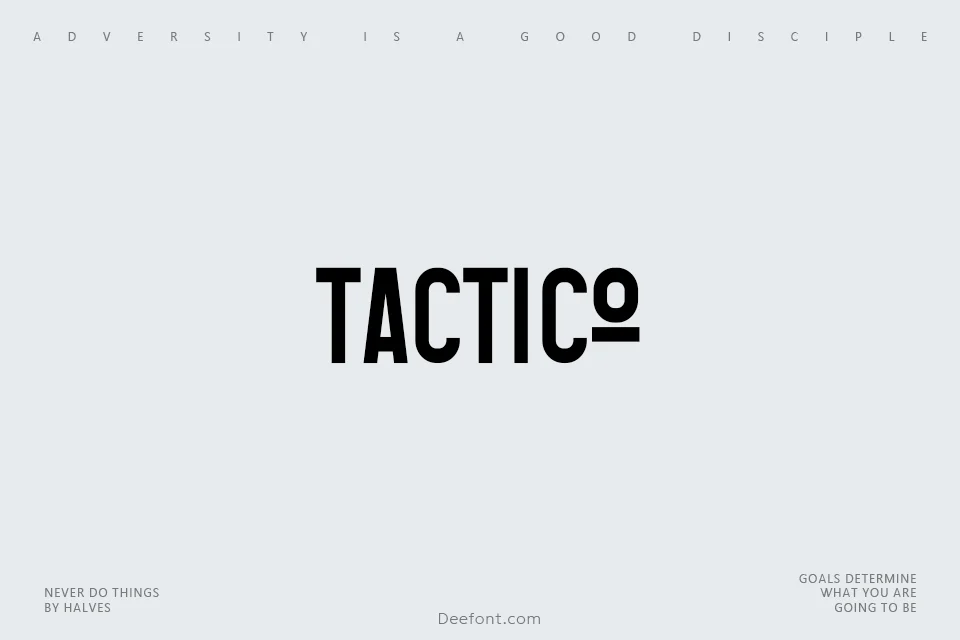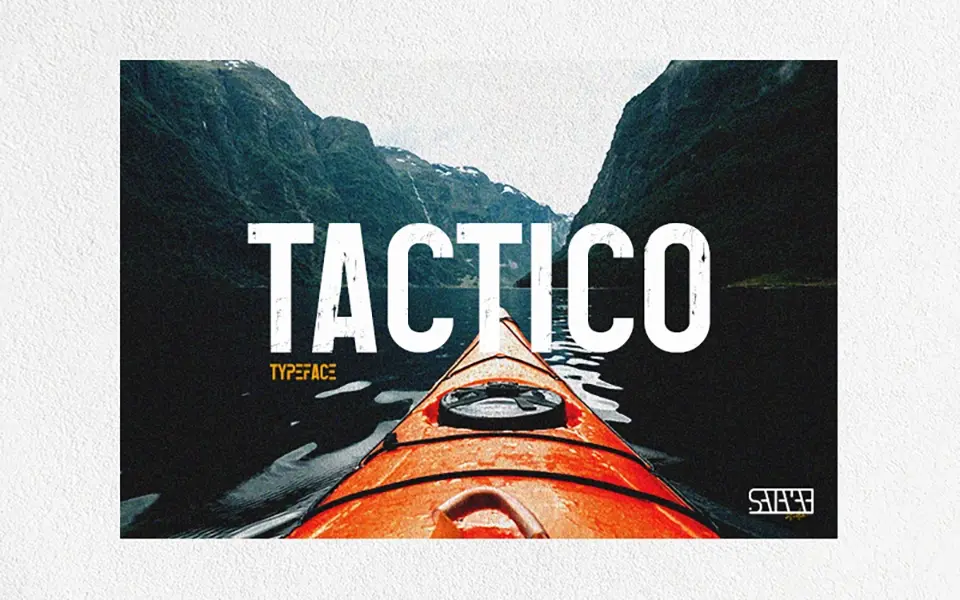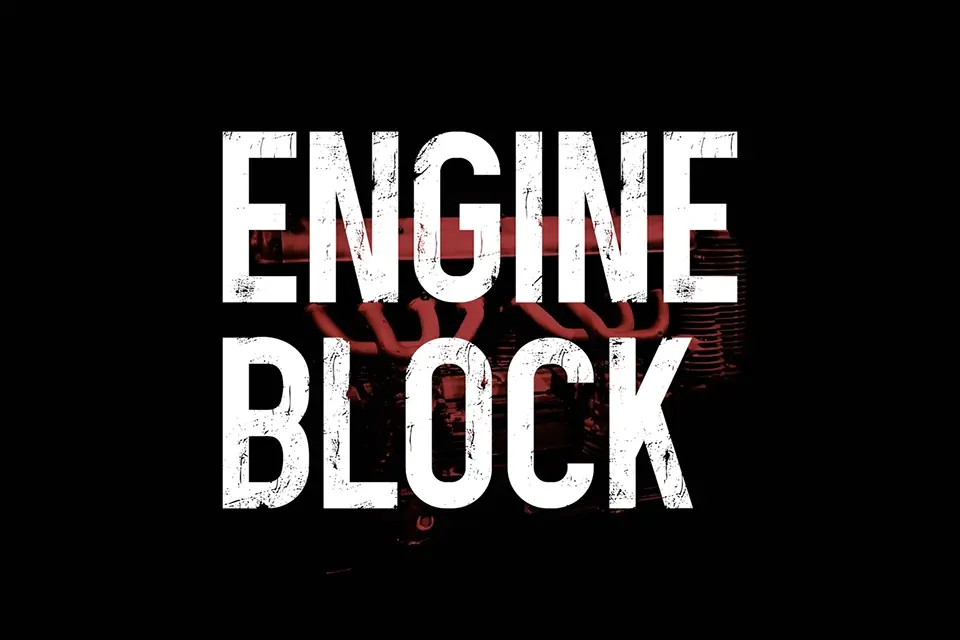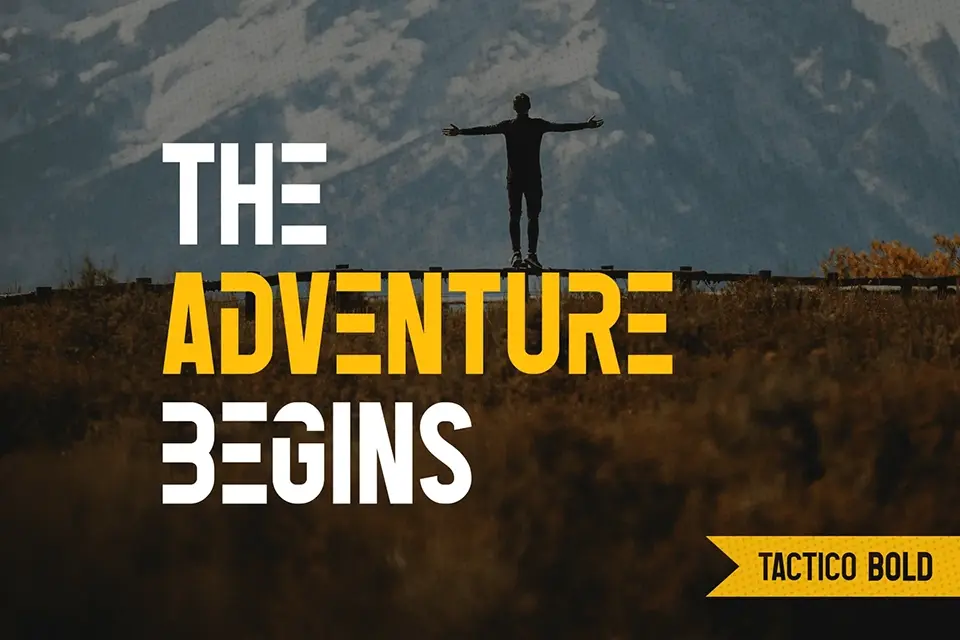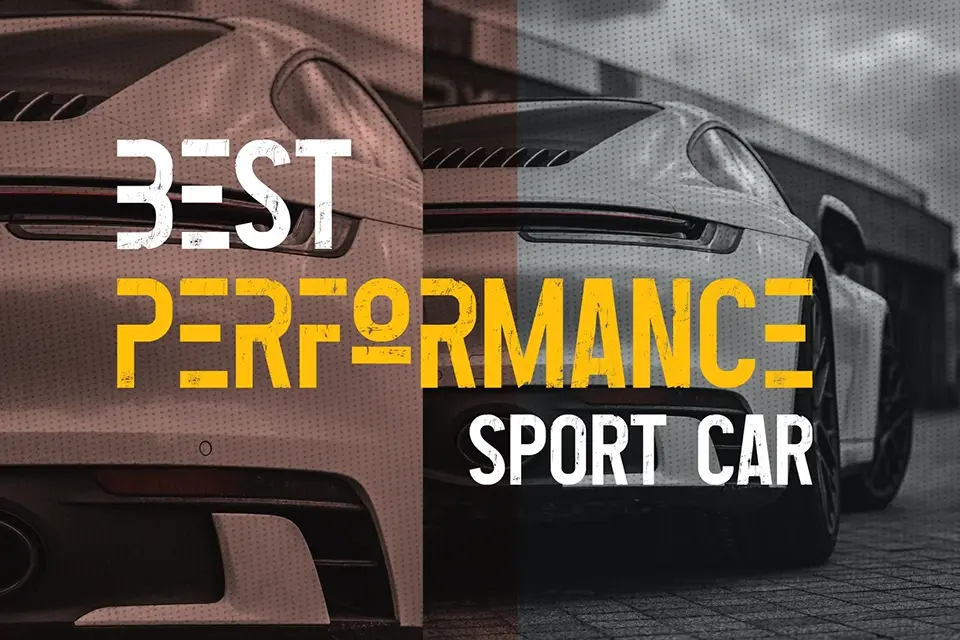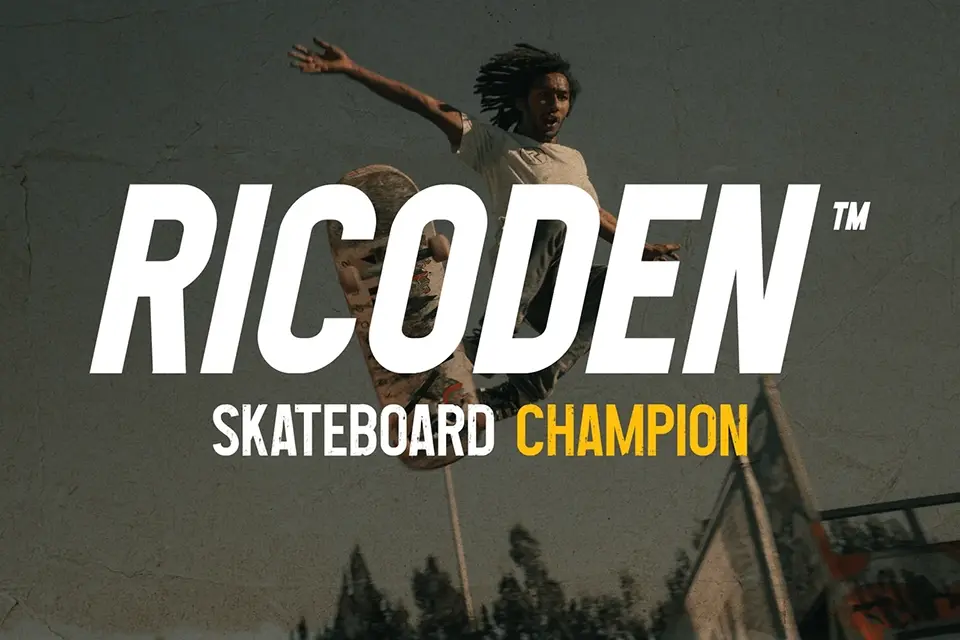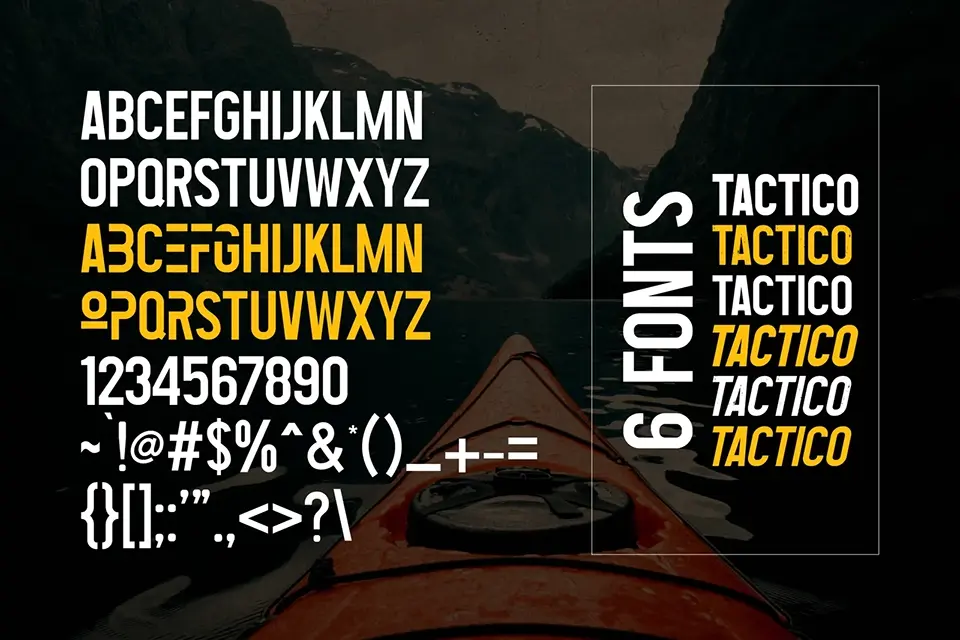
Tactico Font
Tactico is an all-caps sans serif display font with bold and distressed variations, perfect for logos, branding projects, posters, magazines, and social media designs. Available in Regular, Bold, and Grunge/Distressed styles, this versatile typeface brings impact and modern aesthetic appeal to any creative project requiring distinctive typographic treatment.